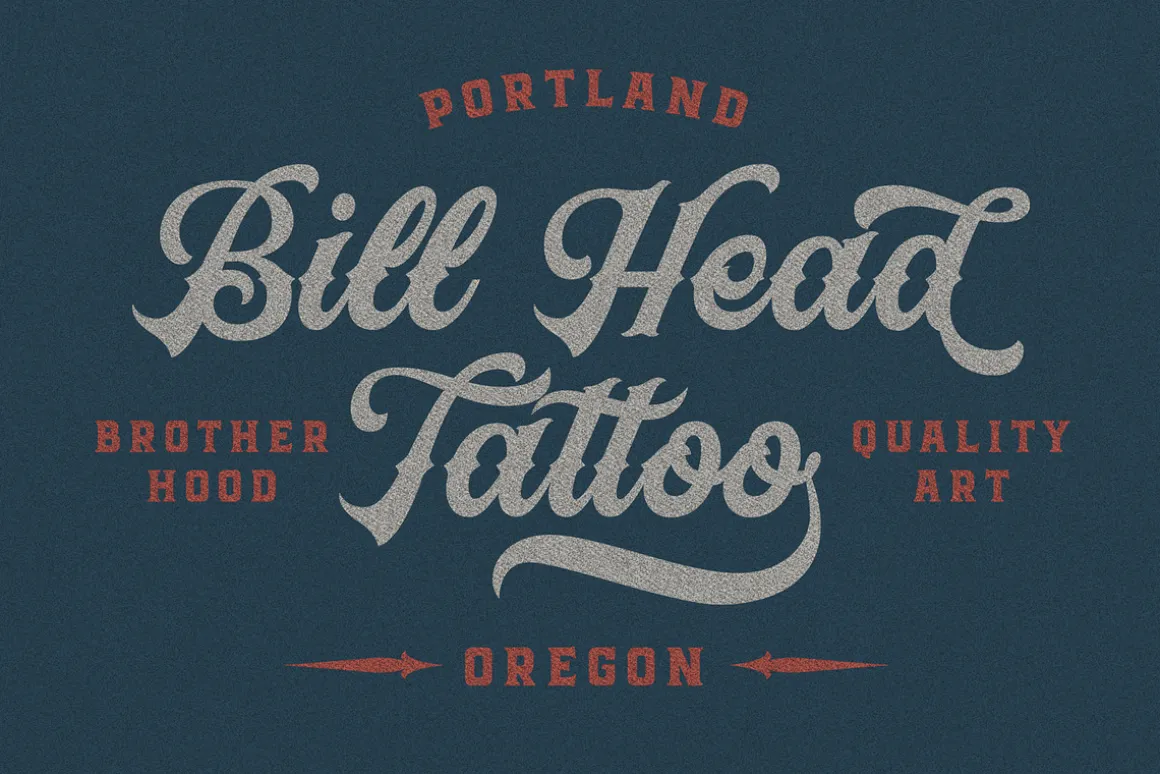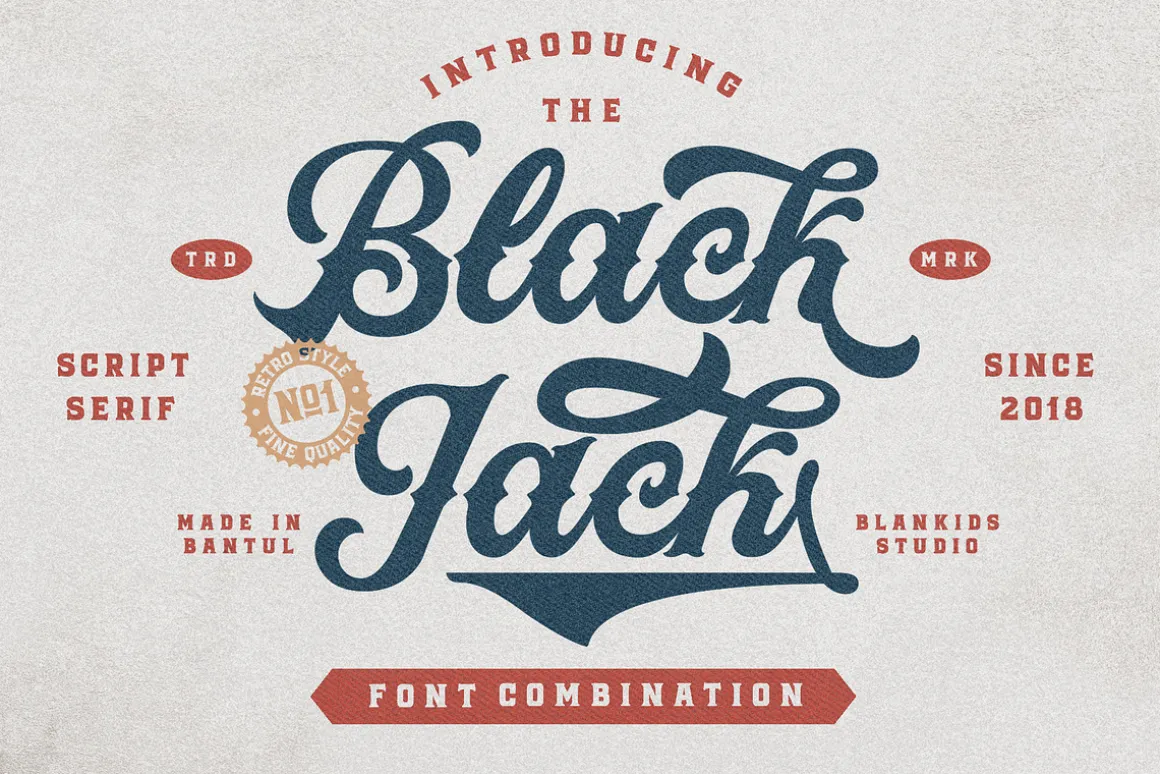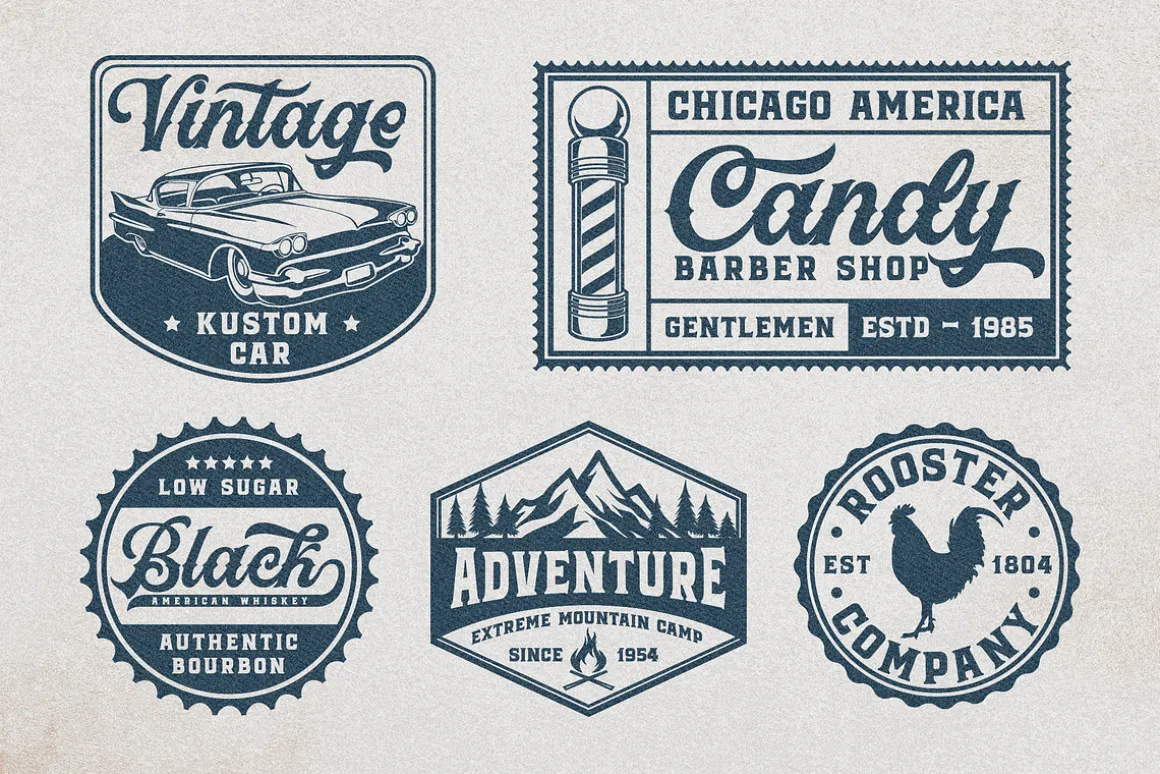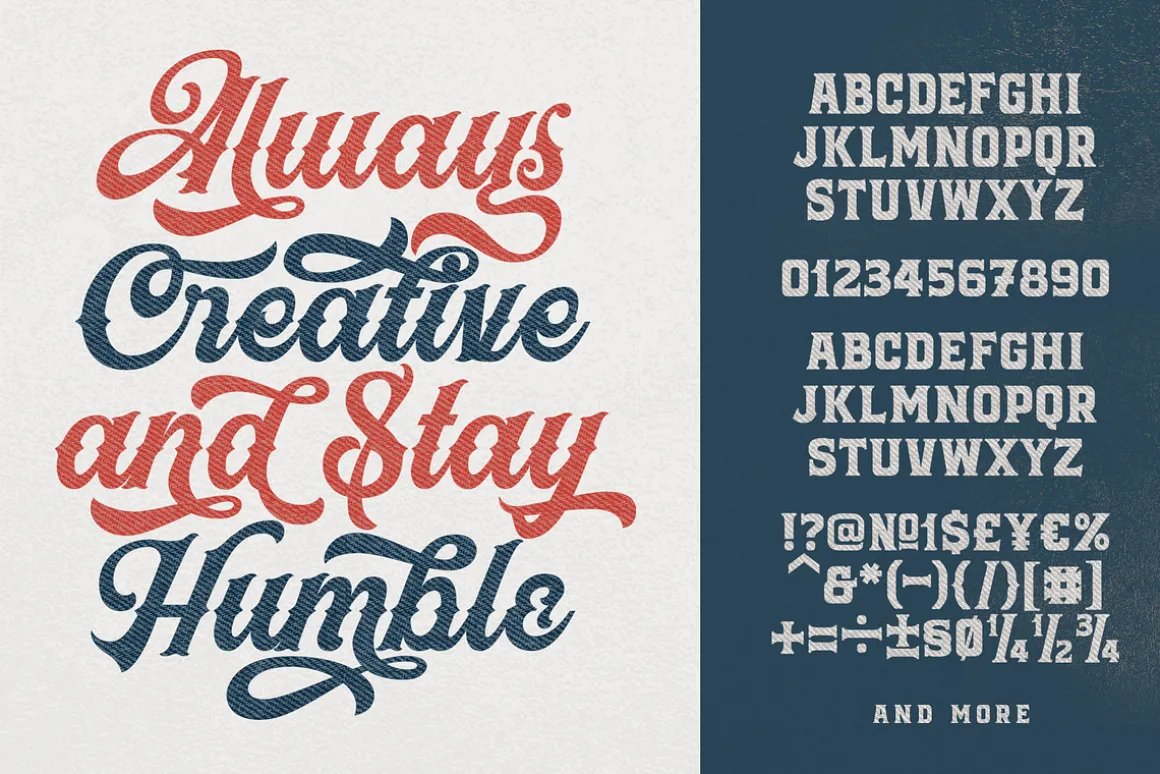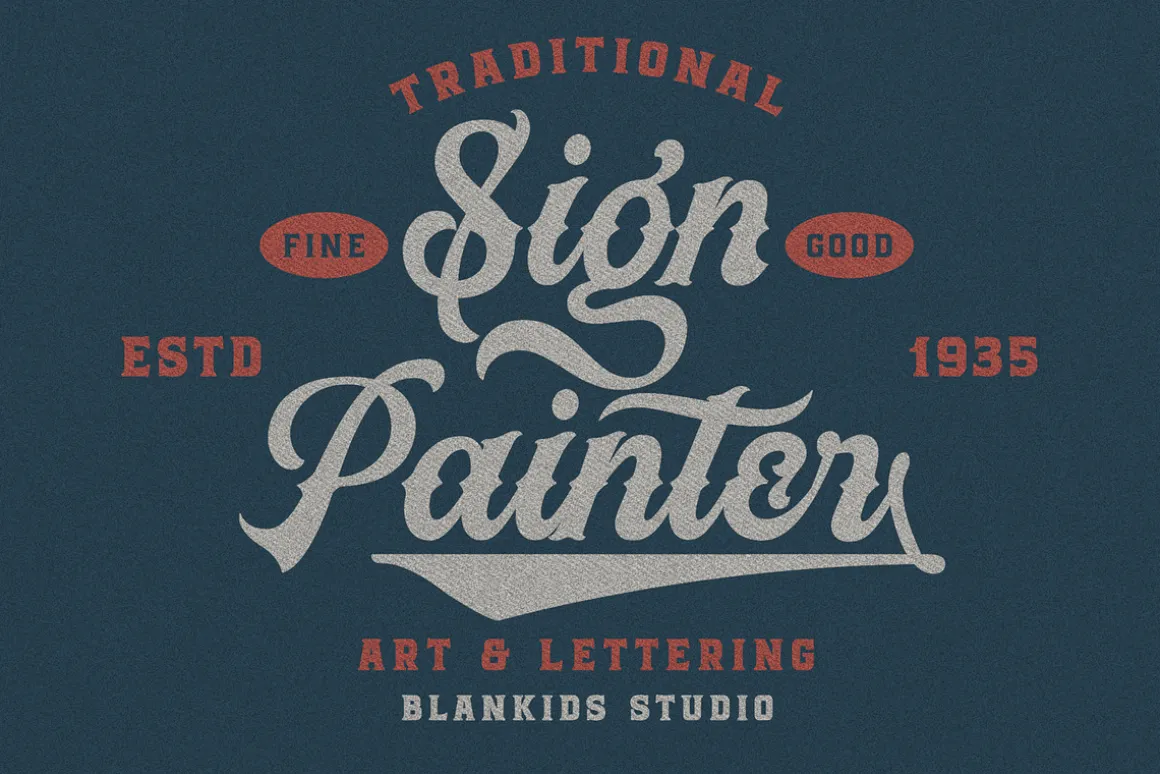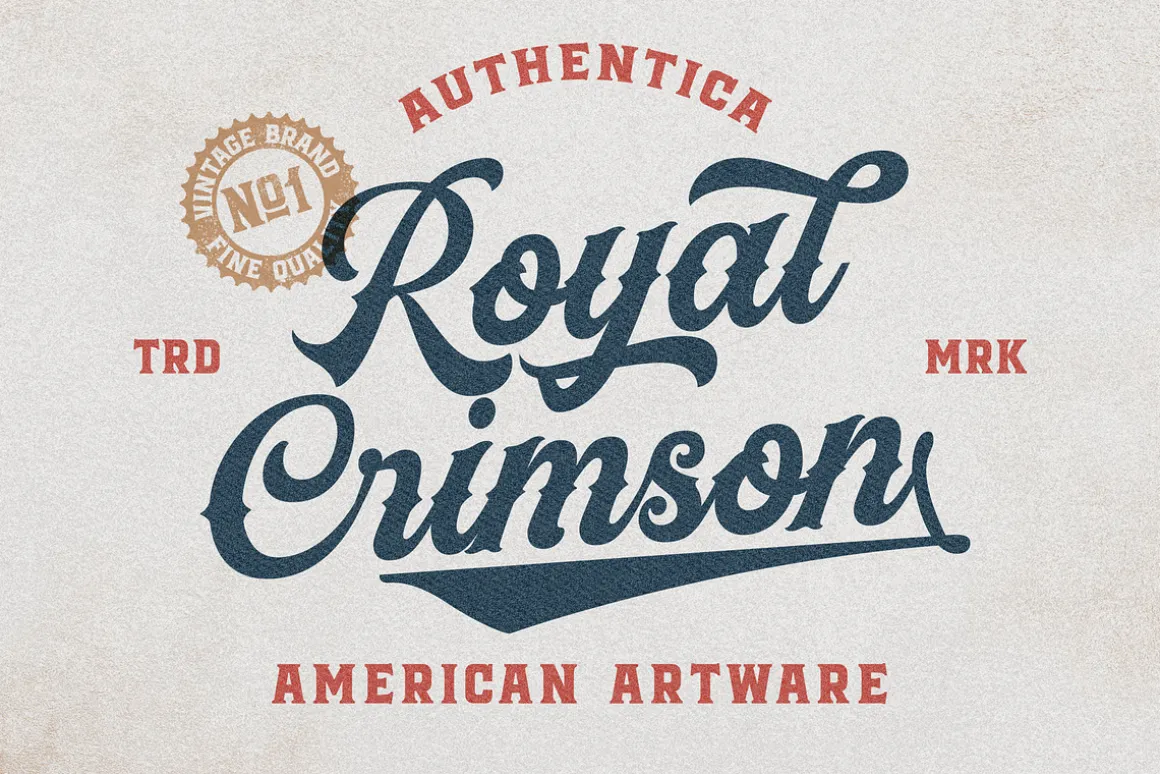
Black jack with 2 style vintage script and bold serif so perfecly combination font, I made Black Jack inspired by the vintage style of letters on posters, bagde, packaging, labels from antiquity. Black jack have more than 400 glyph with many stylistic character, alternative character, swash, ligature and of course have multilingual support. I also added extra illustration and badge.
- Add more style to each font with open type features, stylistic alternates, ligature and variation swash.
- The perfect font choice for powerful projects – logotype, signage, poster, label, badge, quotes and all about vintage designs.
- Include extra illustration and badge